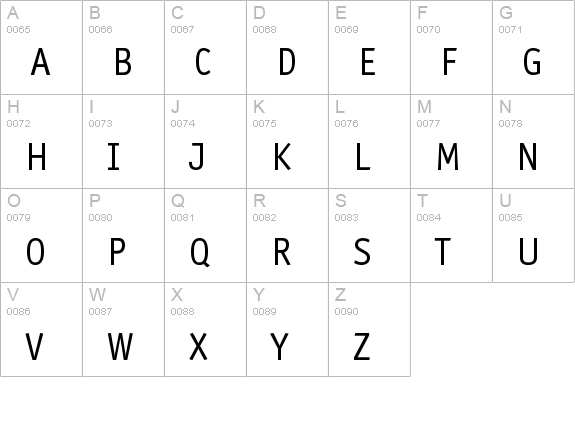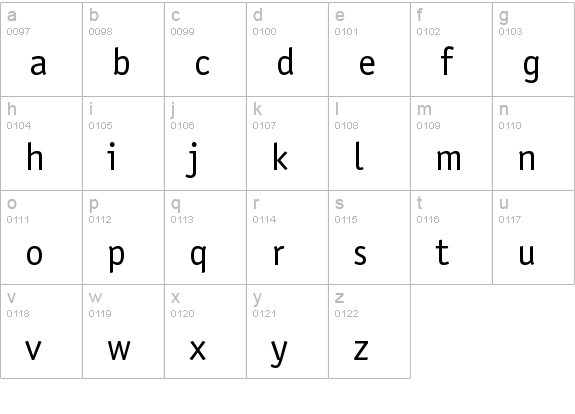
OfficinaSansEF-Book is a comfortable, highly readable variant in the OfficinaSansEF typeface family \xE2\x80\x94 well suited to long-form body text, articles, and editorial content.
OfficinaSansEF-Book is a versatile and modern font that strikes the perfect balance between professionalism and readability. With its clean lines and elegant design, this font is ideal for a wide range of applications, from branding to editorial design. Its medium weight is easy on the eyes and ensures great legibility, making it a popular choice for body text in various projects. What sets OfficinaSansEF-Book apart is that it is available for free download at FontsMarket.com. This means you can easily access and use this high-quality font for your personal or commercial projects without any hassle. Whether you are designing a website, creating a brochure, or working on a presentation, OfficinaSansEF-Book is a reliable and stylish choice that will elevate your design to the next level. So why wait? Download this fantastic font today and start creating stunning designs with ease.